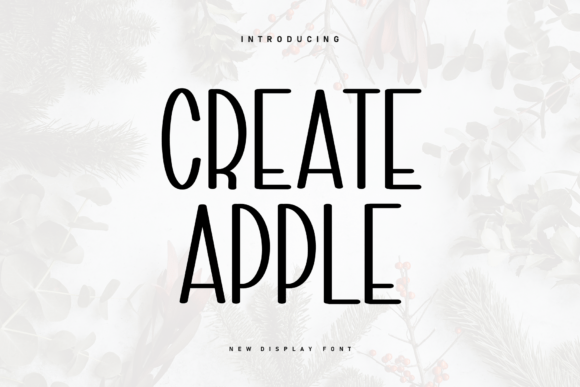
Adding a Personal Touch to Your Designs
As a designer, there’s something magical about seeing a project come together – the thrill of watching your ideas take shape, the excitement of experimenting with new styles, and the satisfaction of crafting something truly unique. But, let’s be honest, sometimes even the most beautiful designs can feel a bit… generic. That’s where the right font can make all the difference.
Enter the Create Apple Font, a sweet and beautiful handwritten font that’s sure to add a cozy accent to any design project. With characters that dance along the baseline, this font is the perfect way to inject some personality into your work. Whether you’re creating a branding package, a social media campaign, or a simple invitation, the Create Apple Font is sure to bring a touch of warmth and character to your designs.
For designers, the Create Apple Font is a valuable addition to any toolkit – offering a unique and versatile way to express your creativity and connect with your audience on a deeper level.
Create Apple Font Key Features
Review of Create Apple Font
I recently had the chance to try out Create Apple Font, and I’m excited to share my thoughts on this font.
- Legibility: The font is incredibly easy to read, making it perfect for body text or headlines.
- Flexibility: Create Apple Font comes in a range of weights and styles, giving you plenty of options to suit your design needs.
- Professional feel: The font has a sleek, modern look that’s reminiscent of Apple’s iconic design language.
- Limited expressiveness: While the font is great for body text, it may not be the best choice for creative or playful projects.
- No bold italics: The font lacks bold italic styles, which may limit its usability in certain situations.
Overall impression
Create Apple Font is a solid choice for anyone looking for a clean, professional font. While it may not be the most exciting option, it’s reliable and easy to work with. If you’re looking for a font that will add a touch of sophistication to your designs, Create Apple Font is definitely worth considering.